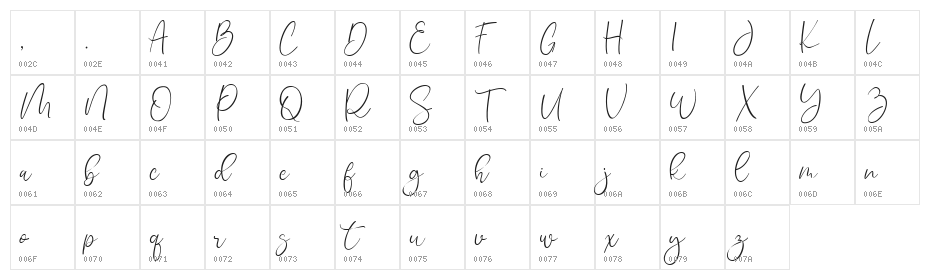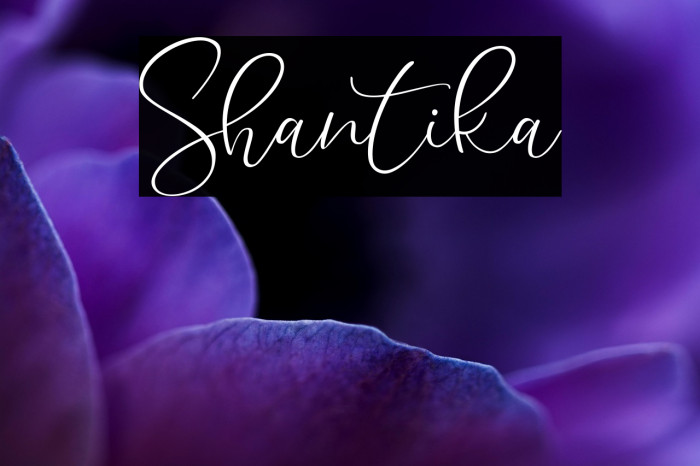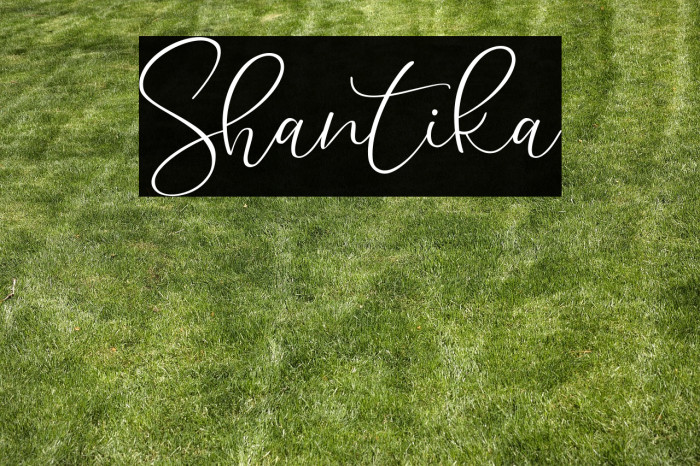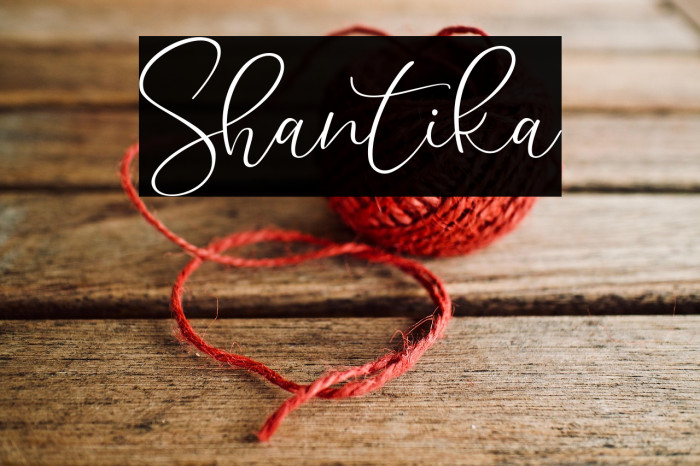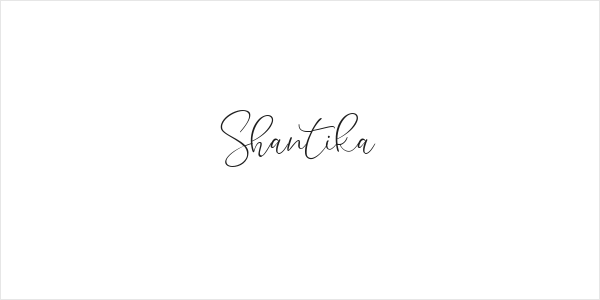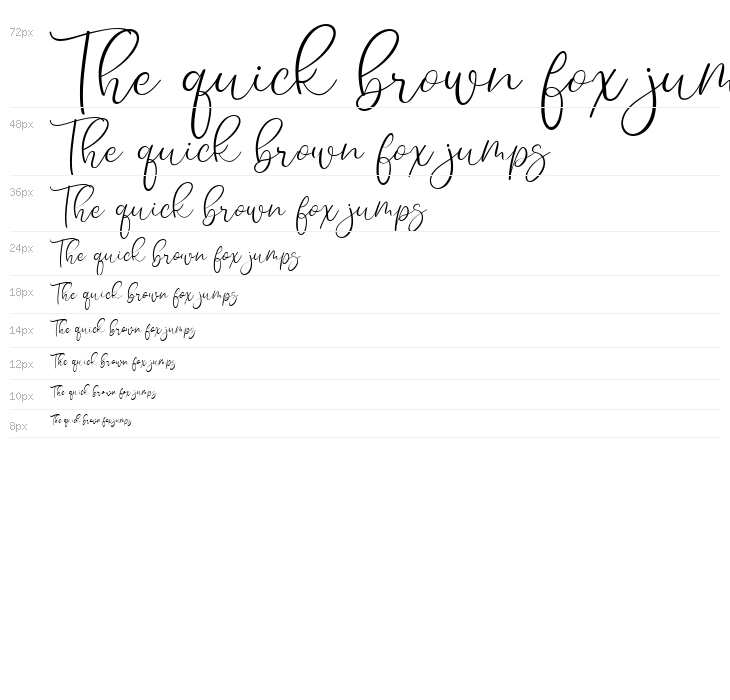
Shantika Font
Shantika Description
This font exudes elegance and fluidity, characterized by its cursive, handwritten style. The letters are interconnected with graceful, sweeping strokes that vary in thickness, adding a dynamic and artistic flair. The uppercase letters are tall and slender, while the lowercase letters maintain a consistent flow, enhancing readability despite their decorative nature. The font's overall appearance is sophisticated and stylish, making it suitable for projects that require a personal touch. The special characters are seamlessly integrated, maintaining the font's cohesive look.
| Proposed Projects | Ideal for wedding invitations, greeting cards, personal branding, and elegant logo designs. |